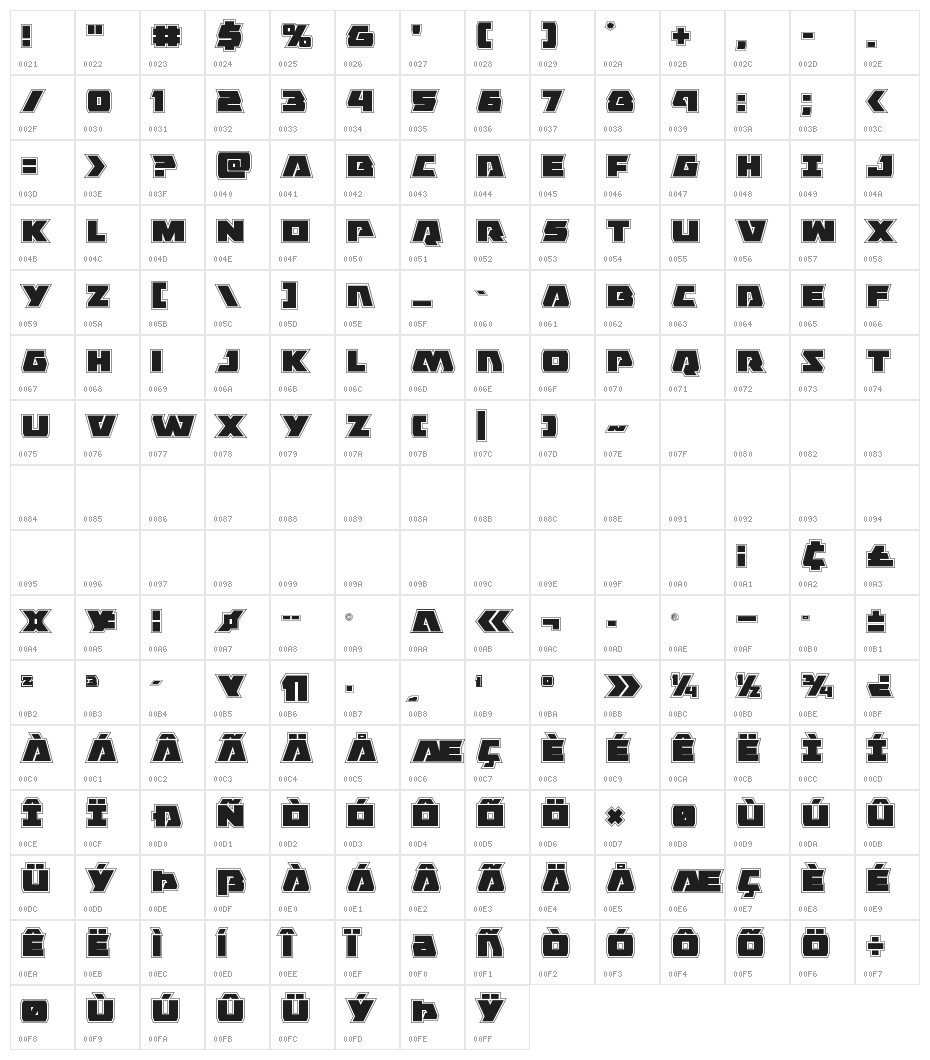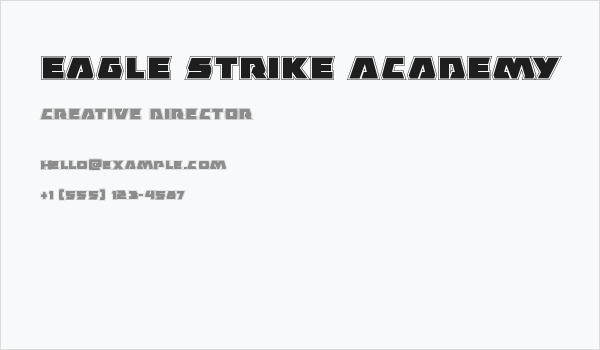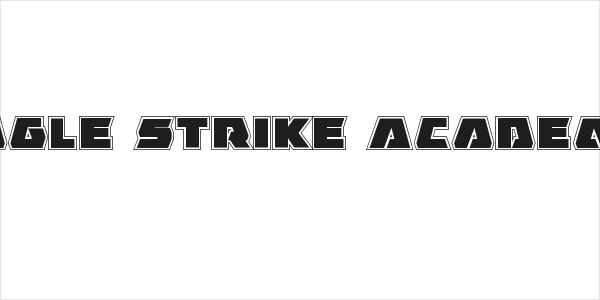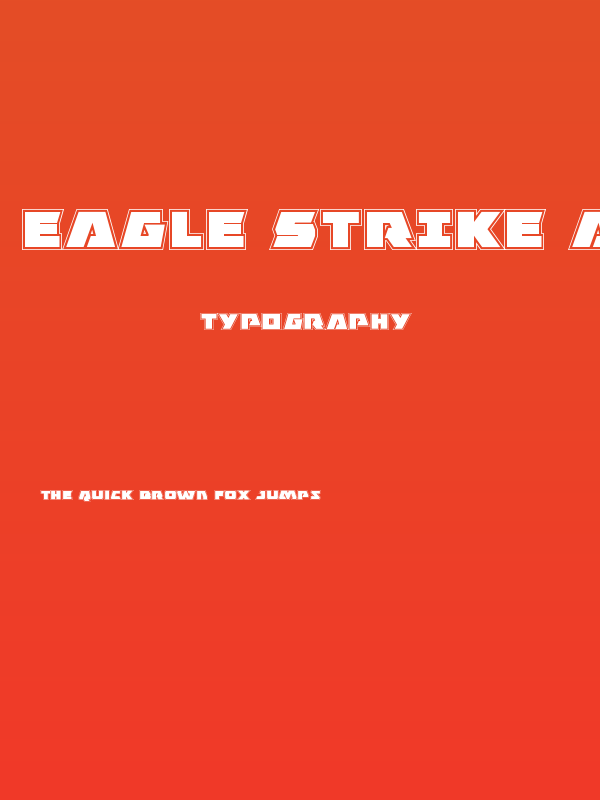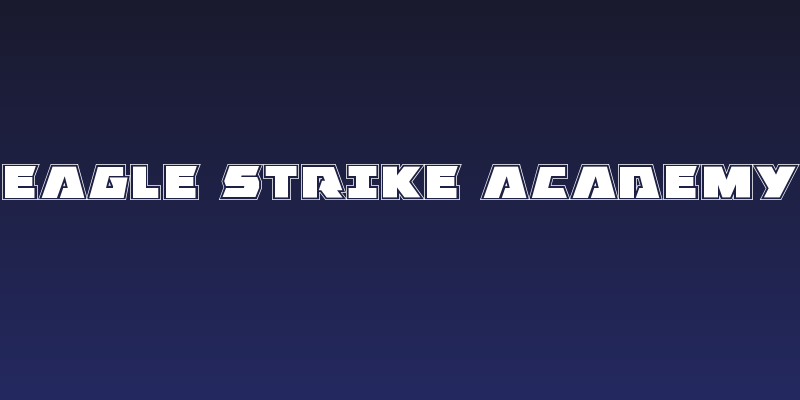
Eagle Strike Academy Font
Eagle Strike Academy Description
This font features a bold, geometric design with a strong presence. The characters are constructed with sharp angles and a three-dimensional effect, giving them a futuristic and dynamic appearance. The thick outlines and solid fills create a striking contrast, making each letter stand out prominently. The style is reminiscent of digital or sci-fi themes, with a modern edge that captures attention. The uppercase letters are particularly distinctive, with unique cuts and shapes that add to the font's overall impact. This font is ideal for projects that require a bold statement and a contemporary aesthetic.
| Overall Style | Futuristic, Modern |
| Proposed Projects | Ideal for video game titles, movie posters, tech branding, and sci-fi themed designs. |